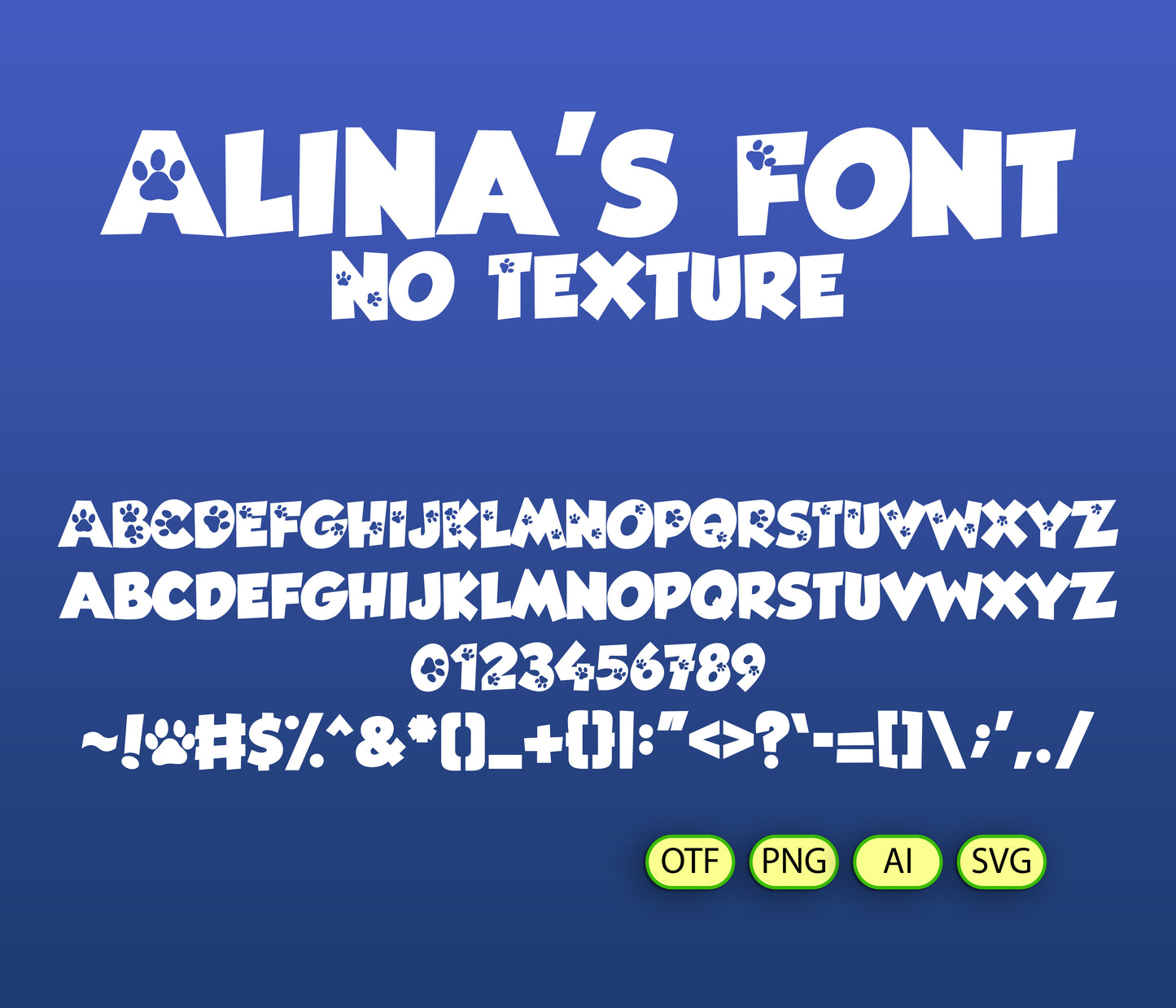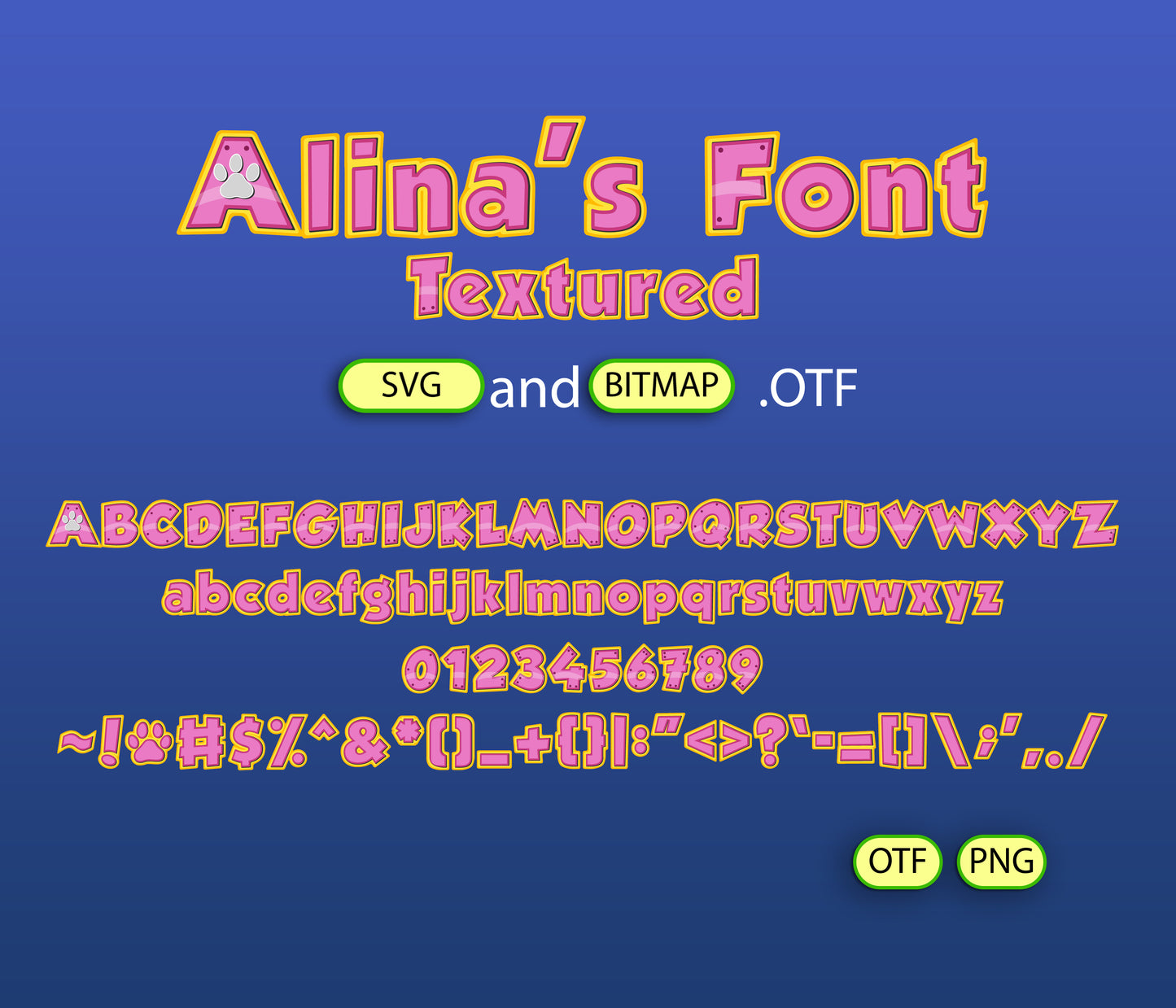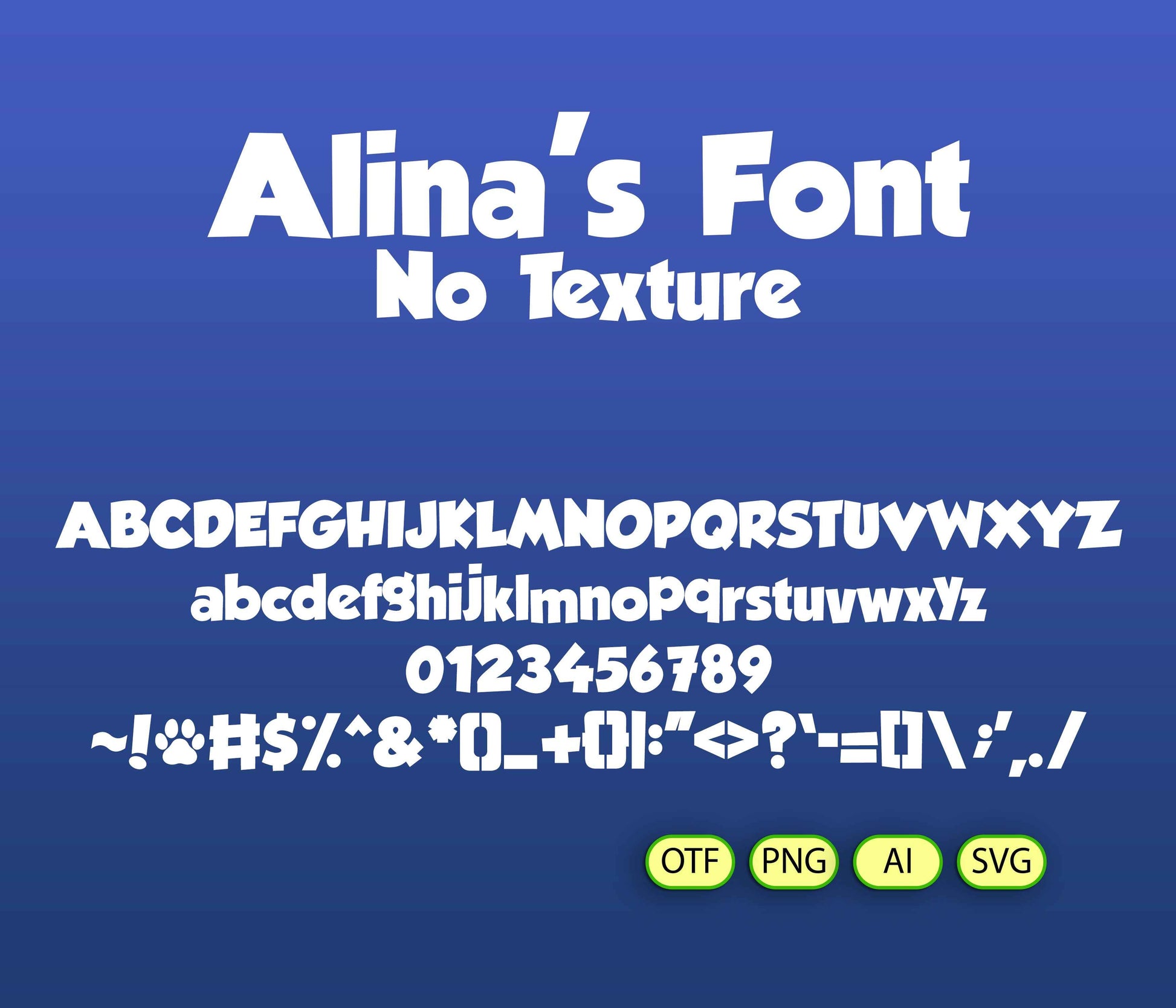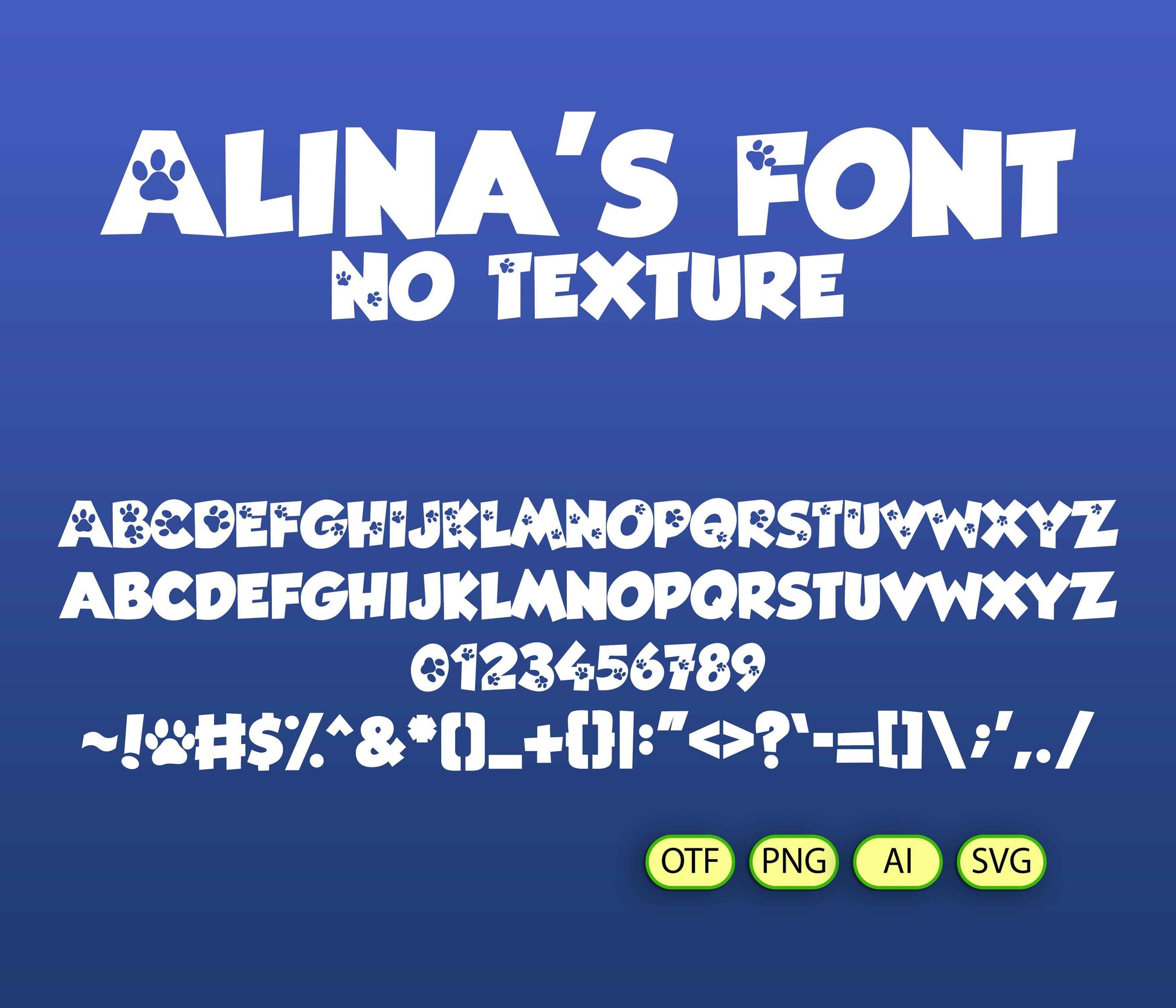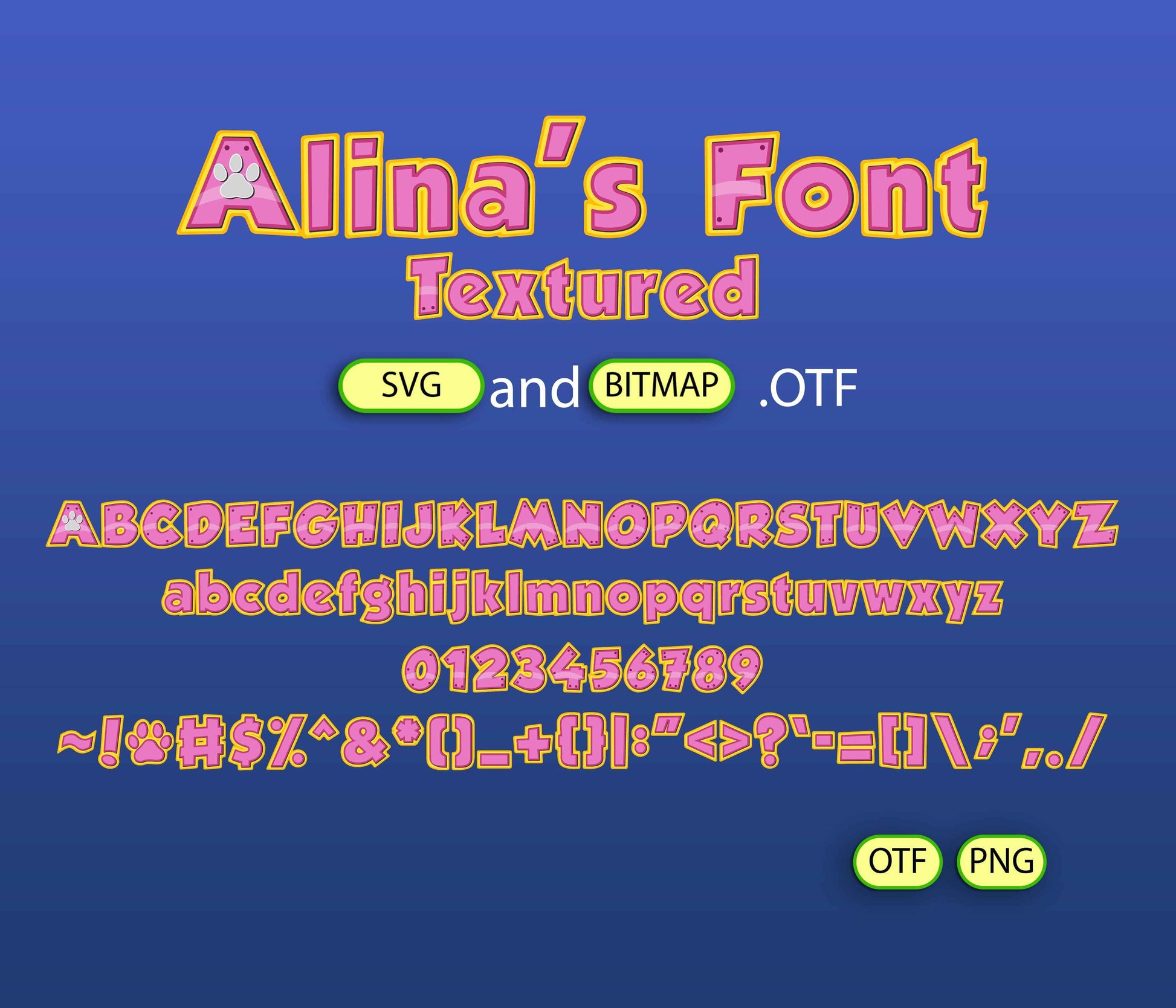
Puppy Rescue Pink Font Textured
Embark on a delightful journey with our Puppy Rescue Pink font, inspired by a popular children's series that showcases a spirited pack of pups on various rescue missions. This font captures the essence of fun, adventure, and teamwork, all wrapped in a charming pink hue that adds a touch of whimsy and joy. Each character in the Puppy Rescue Pink font is designed to reflect a dynamic and child-friendly spirit, making it perfect for projects aiming to bring excitement and camaraderie to life.
What font is the Puppy Rescue Pink font?
Envision a typeface that embodies the playful, bold, and friendly nature of an animated rescue team. Our Puppy Rescue Pink font is crafted to mirror an accessible and lively style, with a focus on fun, rounded forms and a welcoming appearance. This font includes an extensive character set, featuring alphabets, numbers, and special symbols, providing a comprehensive toolkit for various design projects, from children's party invitations to themed merchandise.
What Can You Do With Puppy Rescue Pink font?
The Puppy Rescue Pink font is versatile and ideal for a wide array of creative and child-focused applications:
1. Children's Event Invitations: Create vibrant invitations for puppy-themed birthday parties or events.
2. Merchandise Design: Perfect for designing clothing, toys, and accessories that appeal to young fans of animated series.
3. Digital Content and Social Media: Use the font to add a playful and engaging touch to websites, blogs, and social media posts aimed at children.
4. Educational Materials: Incorporate the font into teaching resources or children's learning materials for a fun and familiar feel.
5. Greeting Cards and Stationery: Design personalized stationery, greeting cards, or gift tags with a rescue pup theme.
6. Promotional Materials: Utilize the font in marketing and advertising materials for children's products or family-oriented events.
7. Interior Decor: Employ the font for wall art, decals, or signage in children's rooms, play areas, or daycare centers.
8. Creative Art and DIY Projects: Ideal for crafting, scrapbooking, and artistic projects inspired by animated rescue teams.
9. Event Signage: Develop eye-catching signs and banners for children's events, screenings, or promotional activities.
10. Apparel and Fashion: Design unique puppy-themed clothing and accessories for kids' fashion.
The Puppy Rescue Pink font is more than just a typeface; it's an invitation to an adventurous and fun-filled world of animated canine heroes.